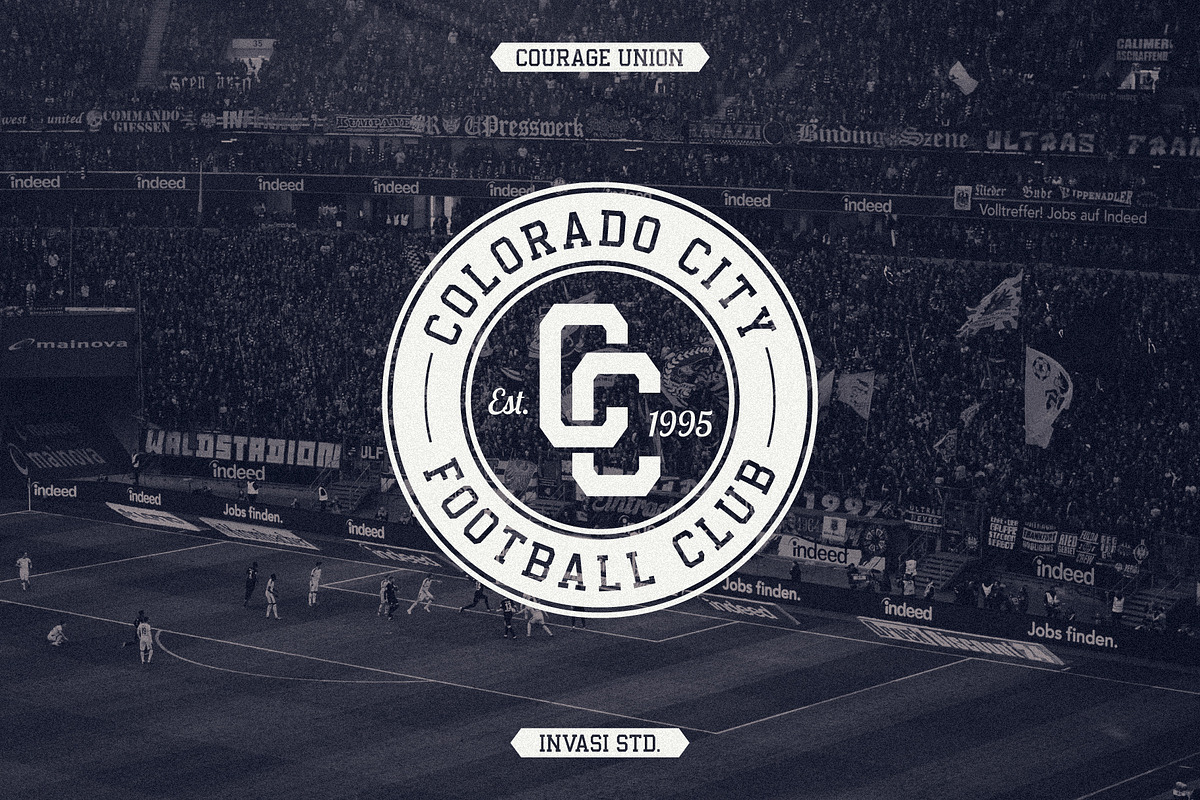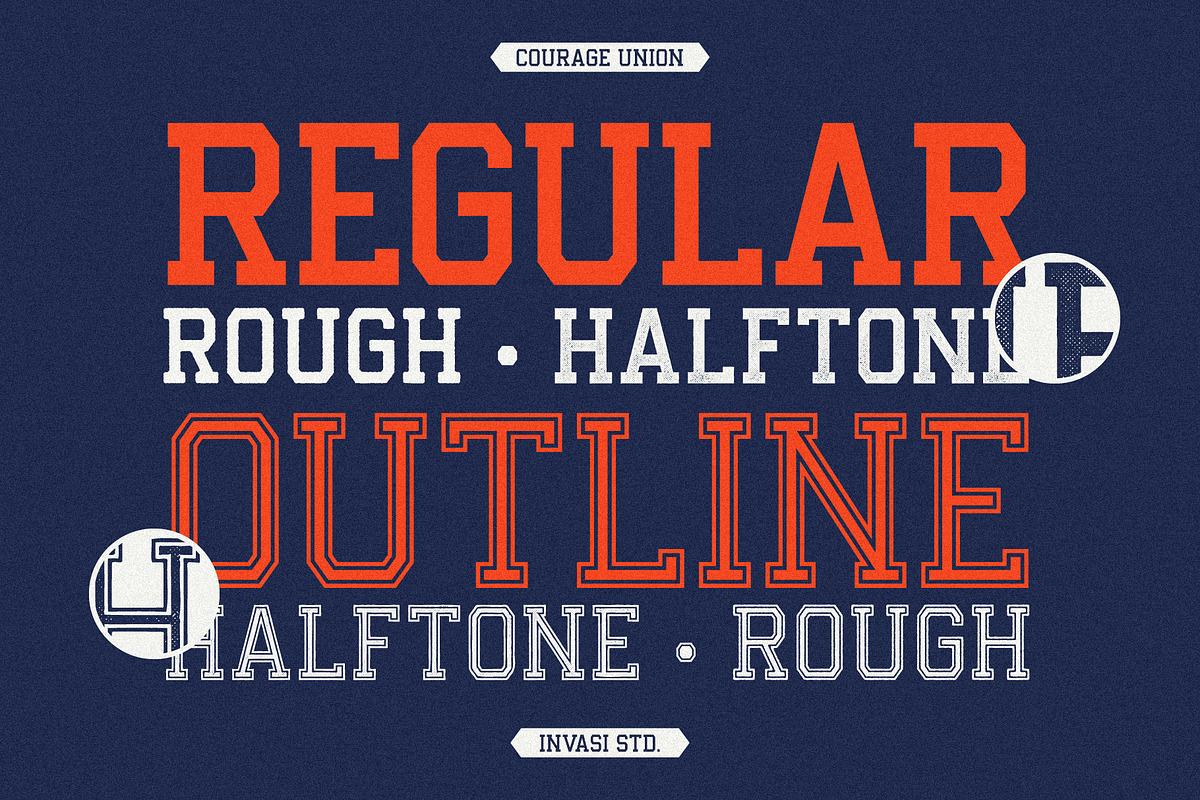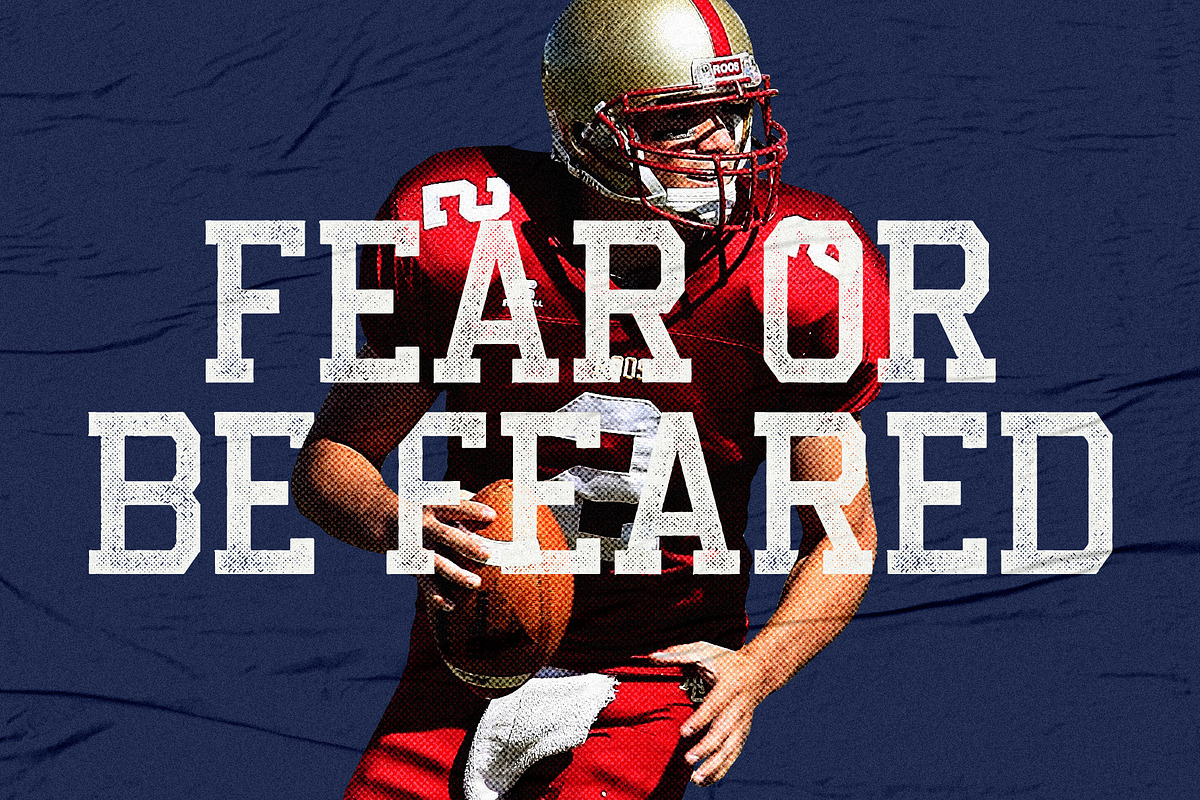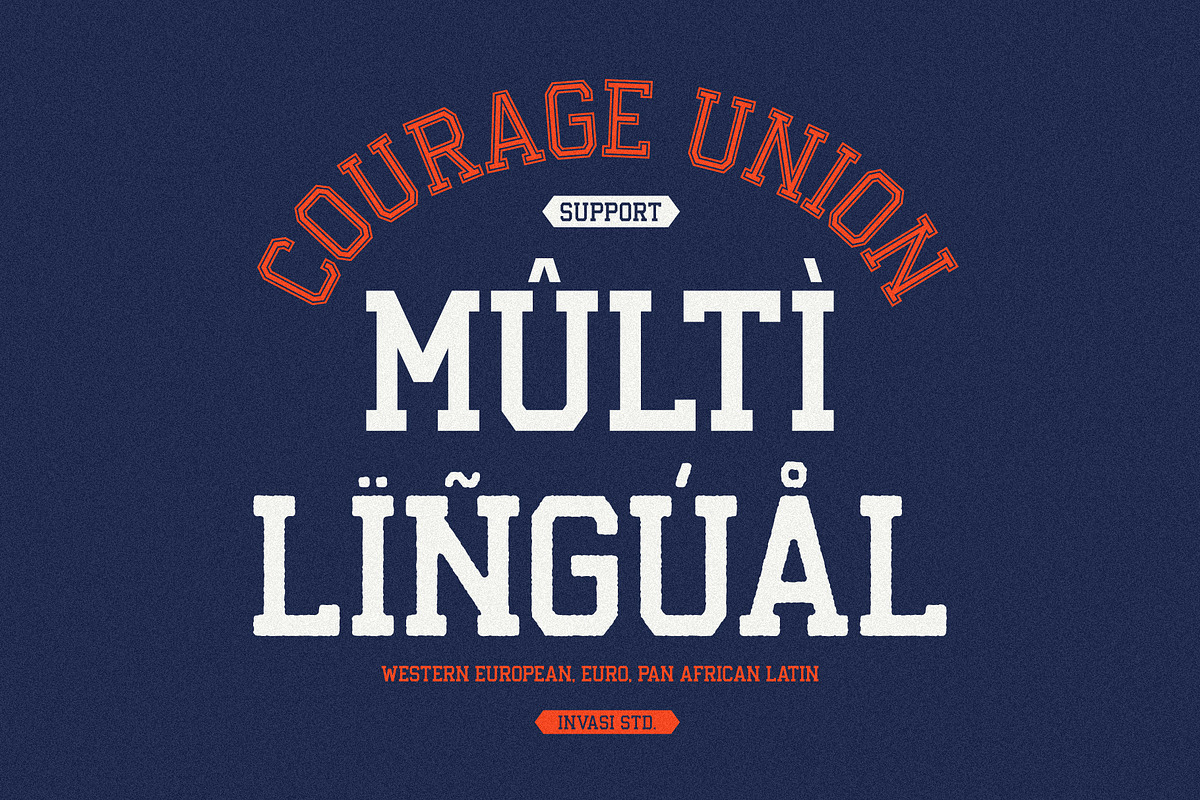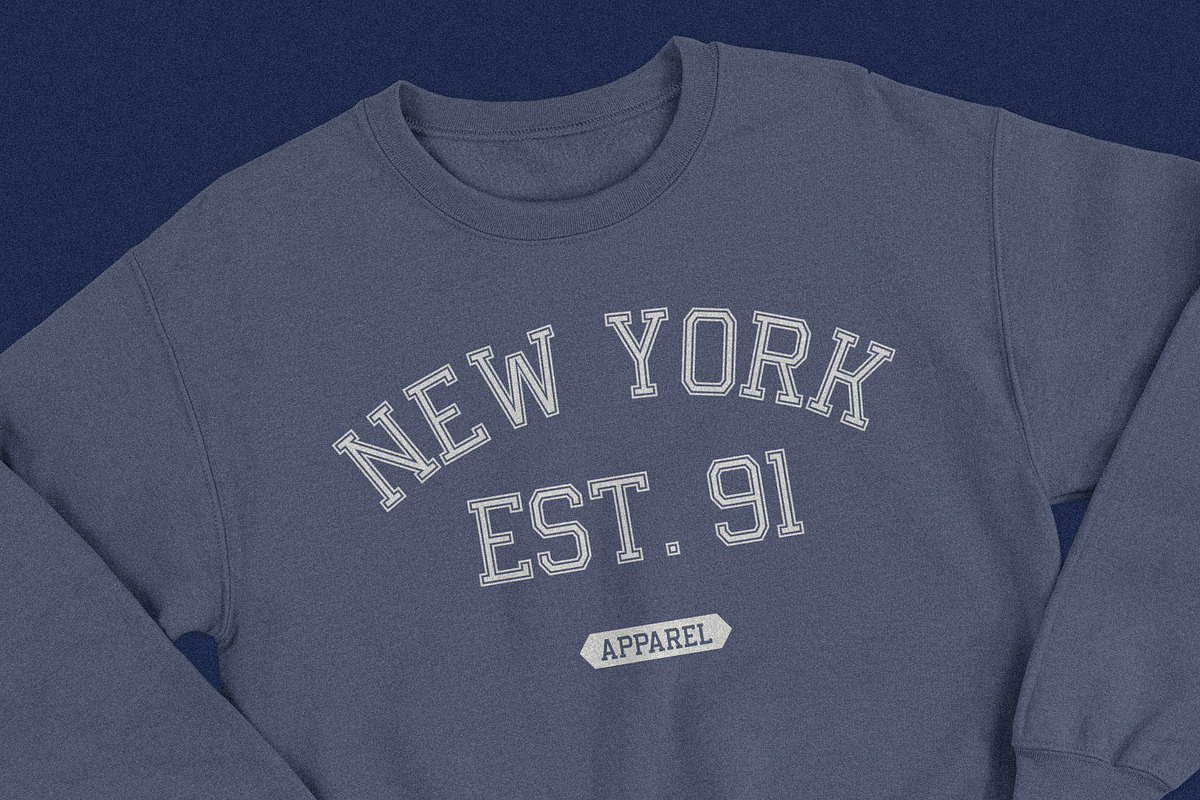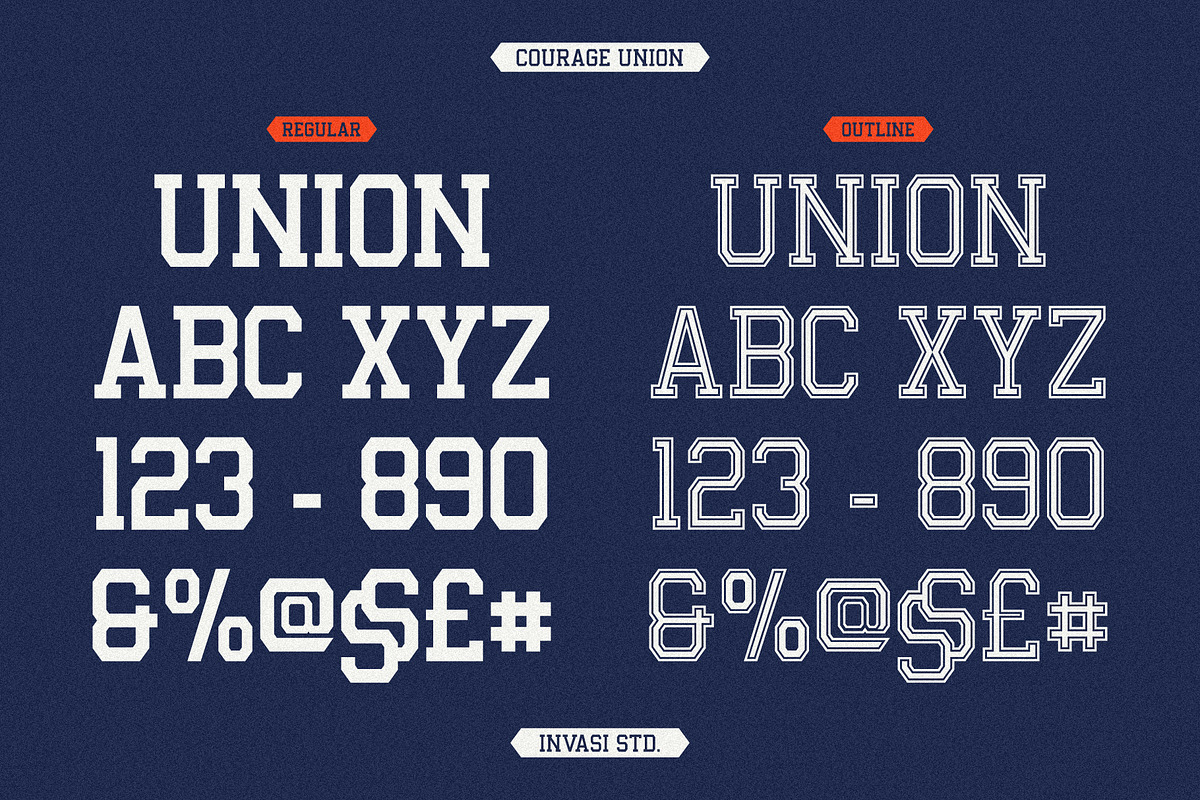
Courage Union - Athletic Slab
Inspired by vintage sportswear. The Courage Union font is designed in slab serif style with a vintage athletic feel. There are six varieties: regular, rough, halftone, outline rough, and outline halftone. Ensuring carefully crafted styles result from the use of this font. This font can be used for anything from logos to social media content to cheering for your favorite sports team.
- Multilanguage